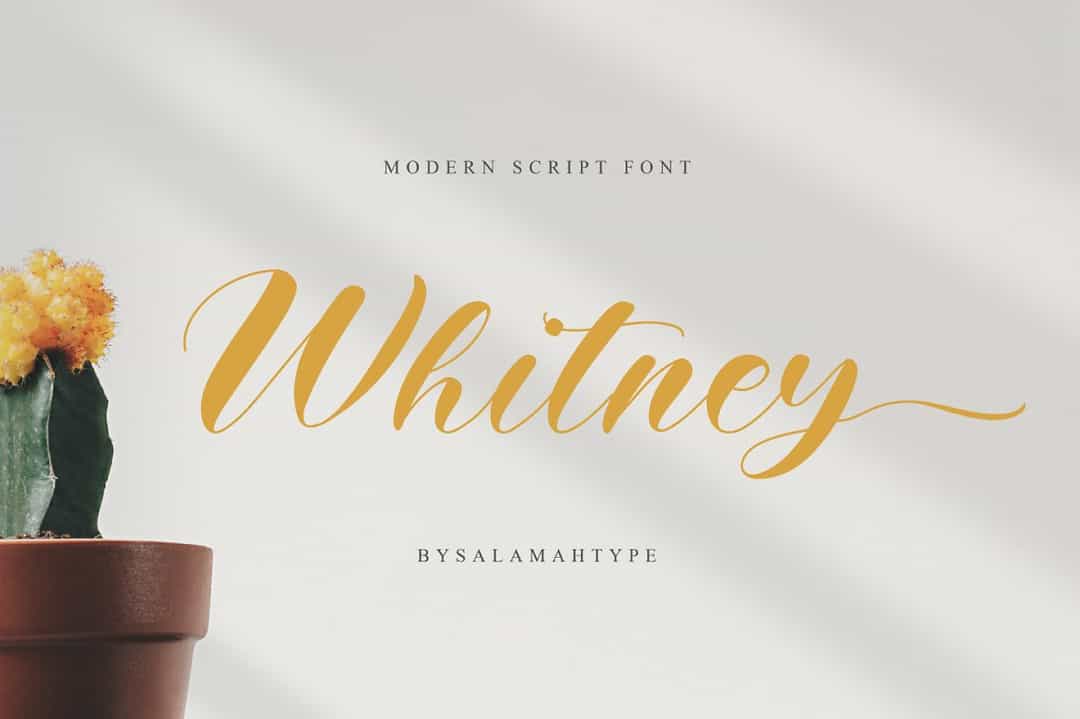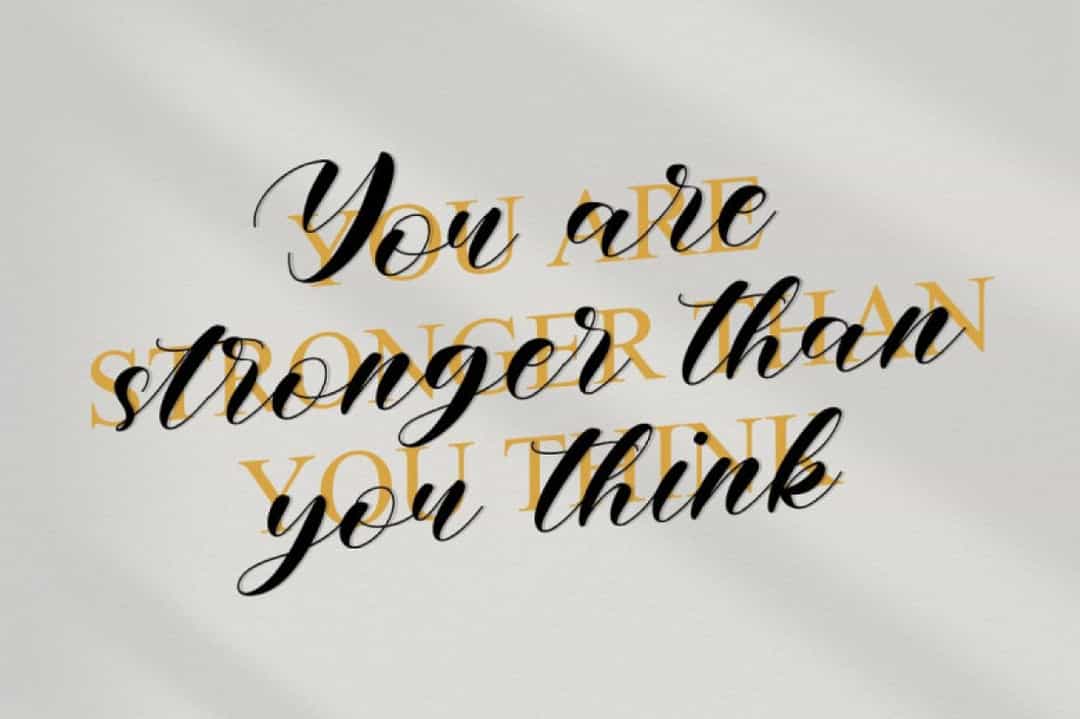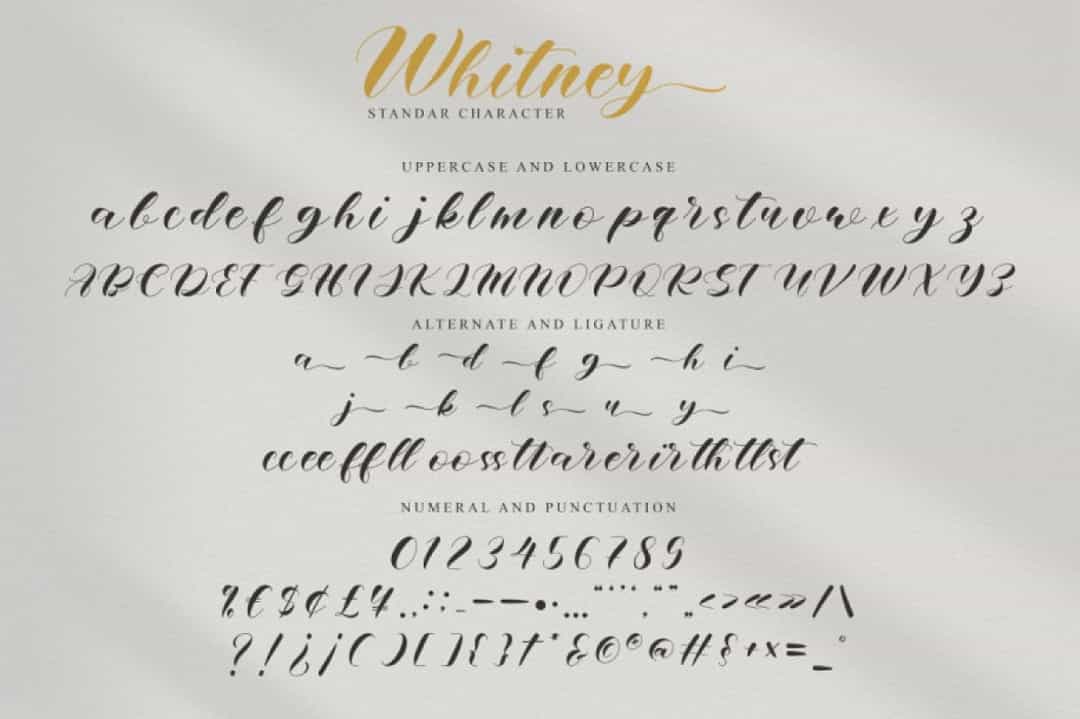
Whitney Font is an elegant calligraphy and handwritten script font suitable for logos, branding projects, wedding invitations, packaging for products, labels advertisements social media merchandise and much more!